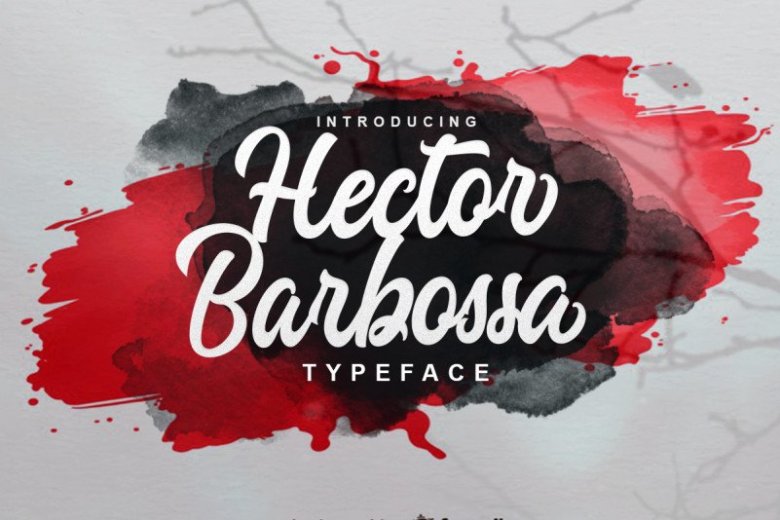
Hector Barbossa Script Font
This is hand painted typeface designed to help you create the look of stunning custom hand-lettering. Introducing Hector Barbossa Script Font. It is design and shared by BhadalStudio. A casual script typeface and combination with Hand Lettering style was created to help you designing brand of yours own or your client, and you also can use it for a logotype, product designs, label, watermark, social media posts, apparel, invitation, signboard, sport club, motor/car, etc.